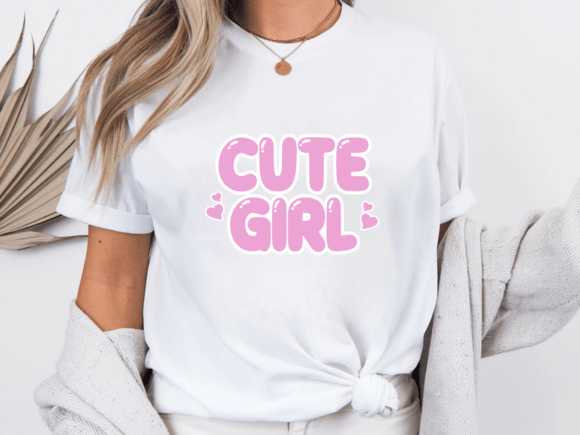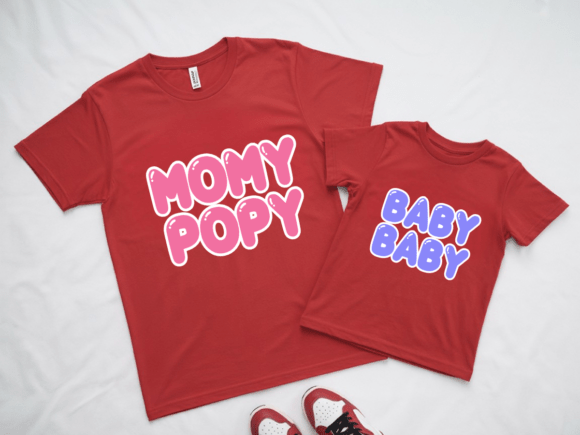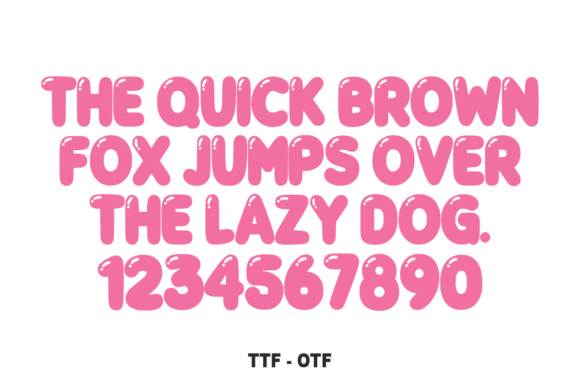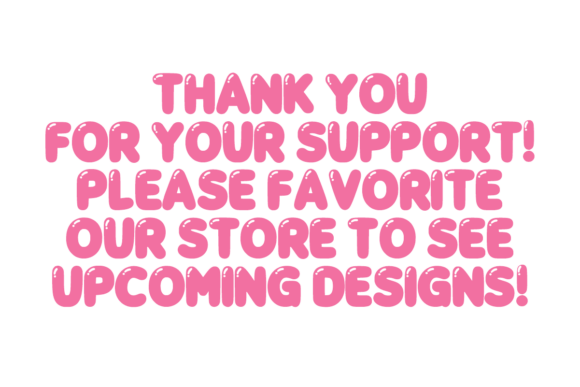
β¨ Pop Your Designs with Amazing Bubble β The Ultimate Playful Cartoon Font! β¨
Are you tired of using the same old fonts in your designs? Do you want to add a touch of fun and energy to your creative projects? Look no further than Amazing Bubble, the ultimate playful cartoon font! This vibrant display font features a soft, rounded βbubbleβ aesthetic with glossy highlights that give it a fun 3D cartoon feel. It’s perfect for designs that need to look friendly, modern, and full of life.
What Makes Amazing Bubble So Special?
Amazing Bubble is designed specifically for crafters and designers who want to add a playful touch to their work. This font is perfect for anyone who wants to create designs that are fun, modern, and engaging. With its soft, rounded edges and glossy highlights, Amazing Bubble is sure to bring joy and energy to any project.
Perfect For: A World of Creative Possibilities
Amazing Bubble is versatile and can be used in a variety of creative projects, including:
- π Kidsβ Apparel β T-shirts, hoodies, and baby onesies. Create fun and playful designs that kids will love.
- π Birthday Parties β Invitations, banners, and cake toppers. Make any birthday party special with Amazing Bubble.
- π Educational Materials β Worksheets, school posters, and teacher resources. Add a touch of fun to learning with Amazing Bubble.
- π Packaging & Branding β Sweet shops, toy brands, and playful logos. Create eye-catching packaging and branding that stands out.
- π± Social Media β Catchy YouTube thumbnails and Instagram quotes. Use Amazing Bubble to create engaging social media content.
Why Choose Amazing Bubble?
There are many reasons why Amazing Bubble is the perfect font for your next project:
- Unique and playful design β Stand out from the crowd with Amazing Bubble’s fun and quirky aesthetic.
- Versatile β Use Amazing Bubble in a variety of creative projects, from kids’ apparel to social media content.
Get Ready to Pop Your Designs with Amazing Bubble!
In conclusion, Amazing Bubble is the perfect font for designers and crafters who want to add a playful touch to their work. With its unique and quirky design, Amazing Bubble is sure to bring joy and energy to any project. Whether you’re creating kids’ apparel, birthday party invitations, or social media content, Amazing Bubble is the perfect choice. So why wait? Get Amazing Bubble today and start popping your designs with fun and creativity!